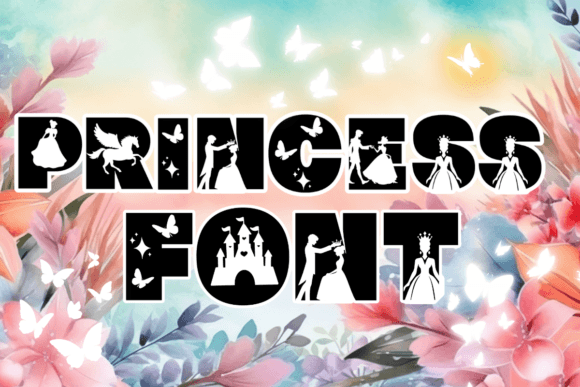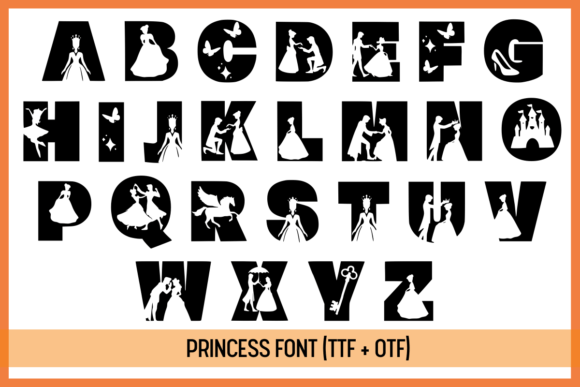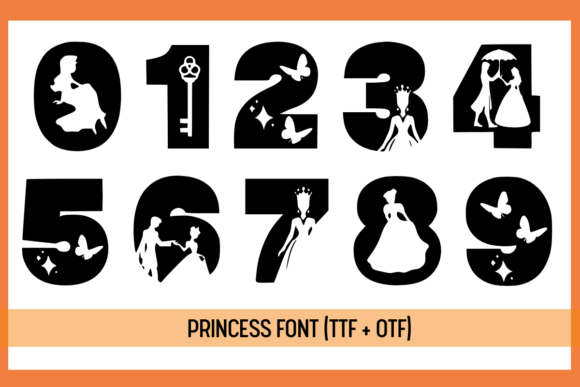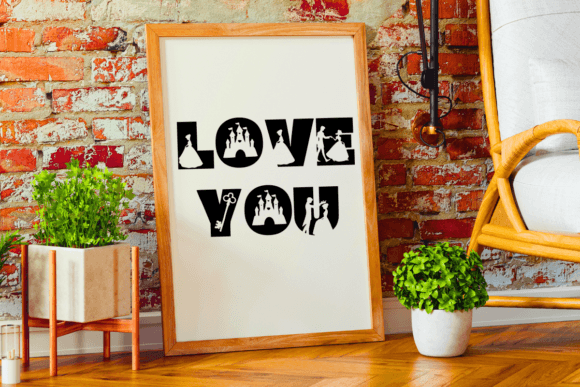
Princess Font
About the Princess Font
Discover the charm of Princess Font. This font is a perfect blend of modern aesthetics and classic appeal. Meet Princess, a fancy font bursting with adventure and royalty! Each letter holds a secret: within its bold curves, you’ll discover graceful silhouettes of space princesses, adding a touch of magic to your designs. Perfect for adding charm and elegance to any project!
Princess Font is ideally suited for headlines, logos, and short text elements in branding materials and packaging design where its ornate detail can be fully appreciated. It adds a touch of playful elegance and would work well for children’s products, whimsical brands, or projects requiring a touch of fairytale charm. Avoid using it for body copy or long paragraphs; its decorative nature reduces readability in extended text.
Pairing Princess with a clean sans-serif like Helvetica Neue for body text creates a strong contrast, balancing the font’s ornate quality with modern clarity. For a more whimsical feel, a playful script font could be used for secondary elements, while a geometric sans-serif might provide a sophisticated counterpoint for more formal applications.
The overall personality of Princess is bold yet elegant, playful yet sophisticated. It conveys a sense of fun and royalty, making it suitable for projects that aim for a charming and slightly whimsical aesthetic.
Princess Font Usage Examples
Princess Font Example